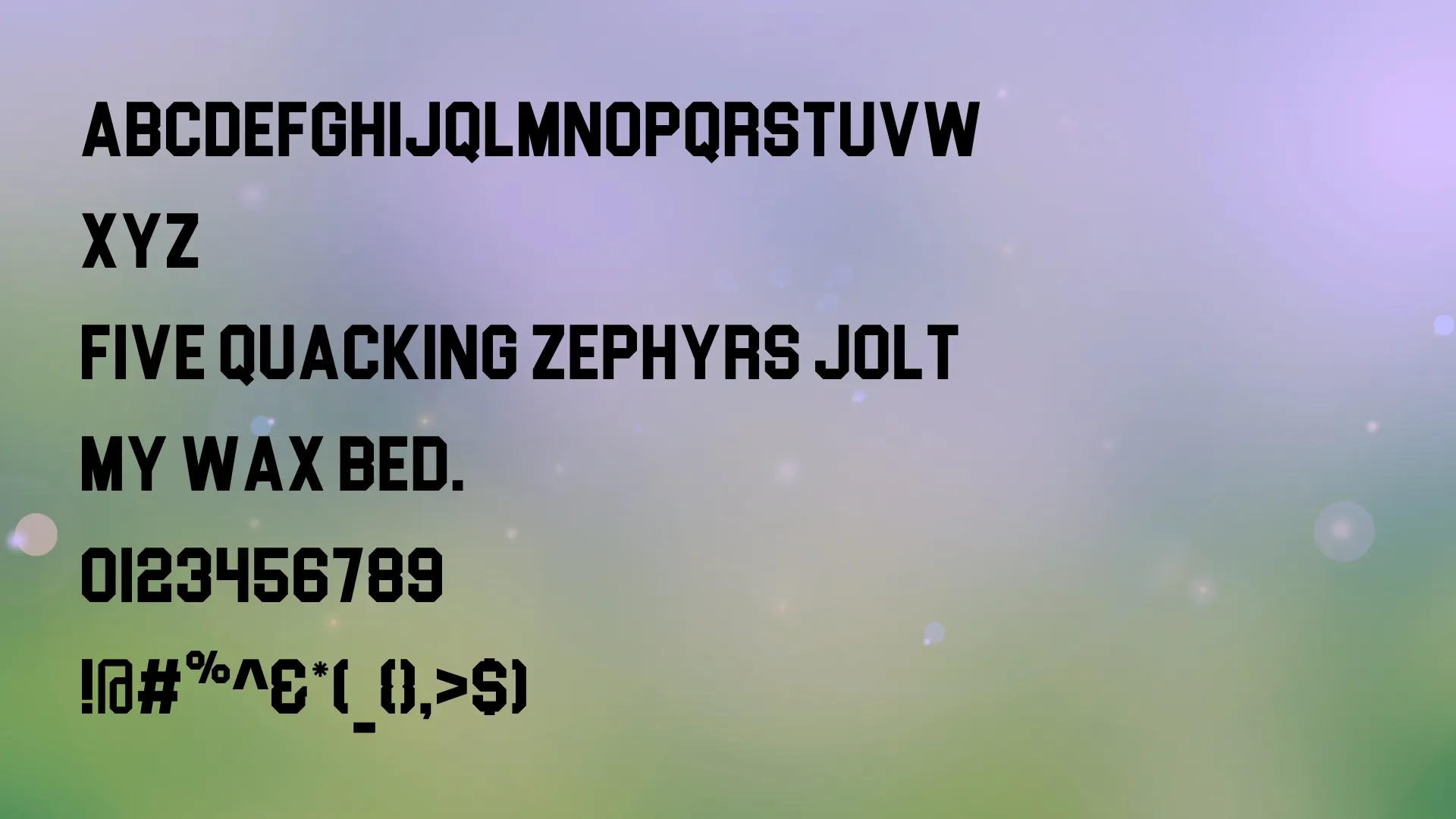
Block Letter Font is a member of the Sans Serif font family. This typeface has been designed on the letters that are carved on the blocks. In some countries schools, they provide these carved letter blocks to their children to let them get a better experience of writing and understanding of the alphabet.
The font that has been used on the blocks is box font. You can use this typeface in both uppercase and lowercase alphabets in your designs. This textured style has a fancy and creative texture appearance that can be best utilized in creative and fancy projects.
You can use this font to create logos, banners, displays, T-Shirt designs, etc. This typeface is also utilized for creating children’s primary alphabets textbooks. You can also use this font to create amazing thumbnails for your YouTube channels.
The texture of this font is not appropriate to utilize in Official certifications. This typeface also has some similar fonts that have similar characters. In our opinion, the helvetica font is most similar to this font. So, you can use this font in replacement of the Genesee JNL font.
Designer of Block Letter Font
This typeface has been designed by Sharkshock. They have also designed many of the famous fonts that are quite popular all over the place. While creating this font style they have focused on the creativity and uniqueness of this font.
This typeface texture is created up in a particular style. This single style features capital letters, small letters, glyphs, punctuation, numerals, symbols, and special characters, as well as language support.
View of Block Letter Font
What type of font is Block Letter font?
This Font is a member of the Sans Serif font family. This typeface has been designed on the letters that are carved on the blocks.
Which Font Is Used on Block Letter Font?
The font that has been used on the blocks is Arial Black Font.
Where Can We Use Block Letter Font?
This textured style has a fancy and creative texture appearance that can be best utilized in creative and fancy projects.